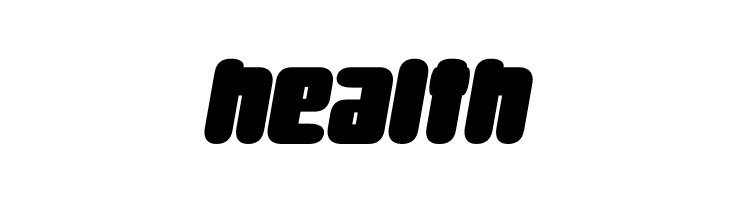
A classic serif font with an elegant italic style and medium contrast.
A bold, flowing script font with smooth, connected letters.
A bold, military-inspired serif font with strong, block-like serifs and uniform stroke width.
A bold, playful font with a cartoonish style and strong presence.
A bold, italicized font with a playful and dynamic style.
A bold, jagged font with a distressed, thorn-like appearance.
A bold, decorative font with a twisted, organic design and spine-like details.
A fluid and elegant handwritten font with smooth, flowing lines.
A bold, playful font with rounded characters and a whimsical style.
A festive icon set with bold, playful Christmas and winter symbols.